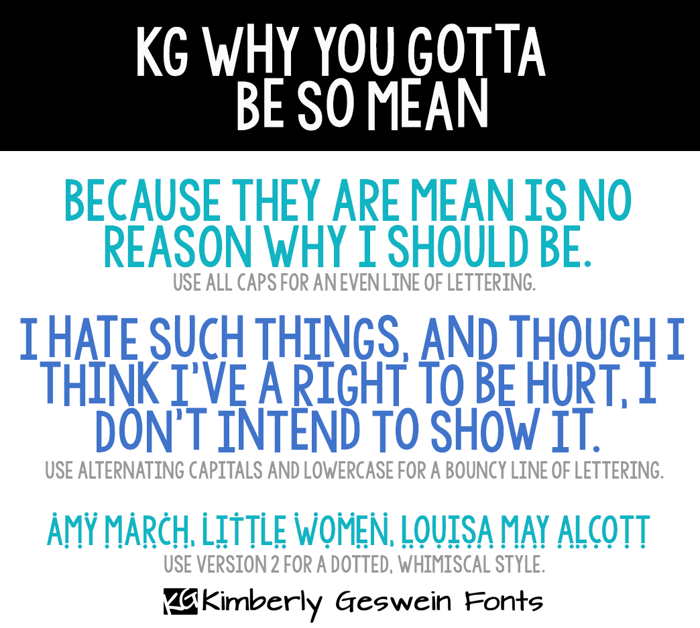
KG WhY YoU GoTtA Be So MeAn Font
Free for personal use. Please pay for commercial use. Use ALL CAPITAL LETTERS for standard flat lettering. Use AlTeRnAtInG capital and lowercase letters for bouncy titles.